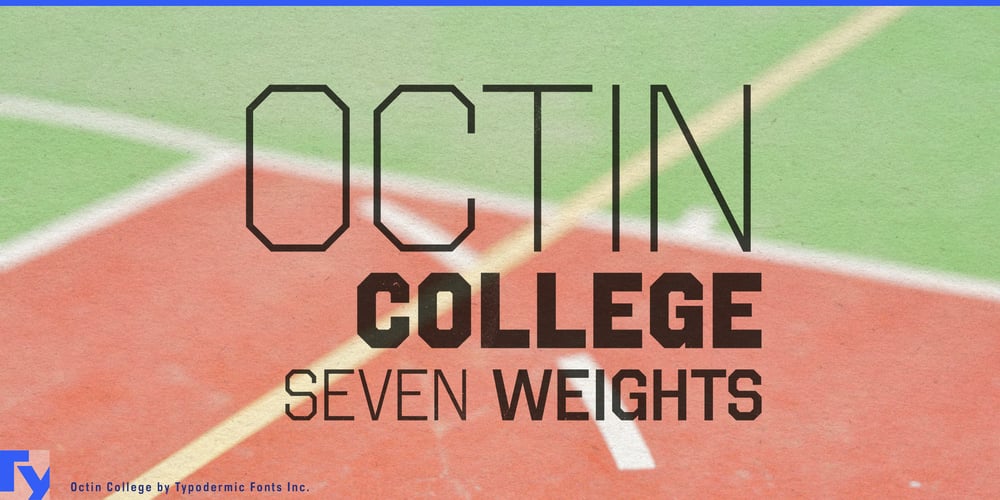
Octin College
Octin College font
Octin College Font Family was designed by Ray Larabie and published by Typodermic. Octin College contains 7 styles and family package options. Step onto the quad of typographic excellence with Octin College, a typeface that embodies the spirit of academia while flexing serious design muscle. This isn’t just a typeface—it’s a full-ride scholarship to the university of bold, impactful communication.With seven weights ranging from freshman light to post-doctoral black, Octin College offers a curriculum of typographic possibilities. The lighter weights bring the elegance of a well-crafted thesis to your headlines, while the heavier grades deliver the authoritative punch of a tenured professor’s keynote address. Octin College isn’t just another face in the lecture hall. Its robust, blocky letterforms stand out like a star quarterback, yet carry the gravitas of a distinguished dean. From campus wayfinding to alumni magazines, from sports team merch to research posters, Octin College graduates with honors in every design discipline.This typeface is fluent in the languages of global academia. Supporting most Latin-based European writing systems, Octin College ensures your message maintains its scholarly impact from the hallowed halls of Oxford to the innovative campuses of MIT. It’s typography that’s ready to study abroad without losing its voice. Octin College leads a proud fraternity of related fonts, each with its own academic concentration. Join the athletic department with Octin Sports, explore criminology with Octin Prison, enroll in military science with Octin Stencil, major in history with Octin Vintage, or express yourself in visual arts with Octin Spraypaint.In a world where design trends come and go like fad majors, Octin College stands as a timeless classic. It’s for institutions that don’t just educate—they inspire. In the Ivy League of impactful typography, Octin College doesn’t just make the Dean’s List—it rewrites the curriculum.